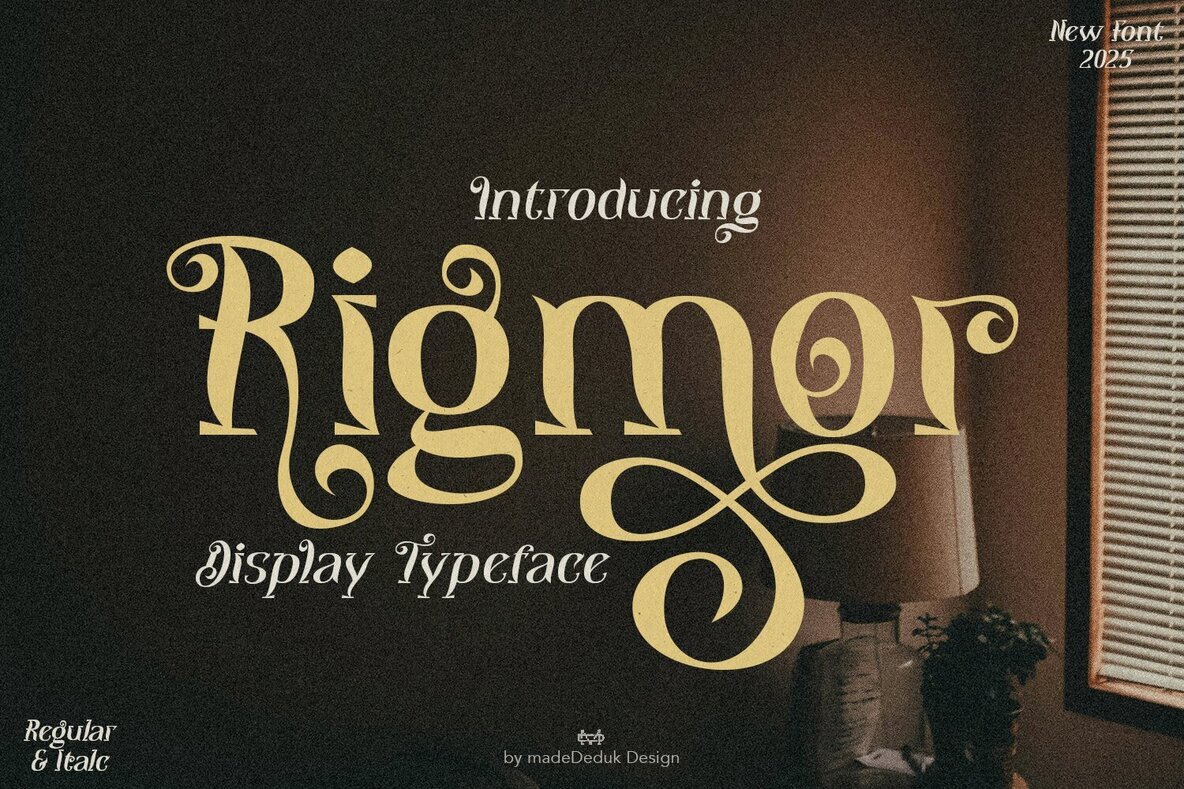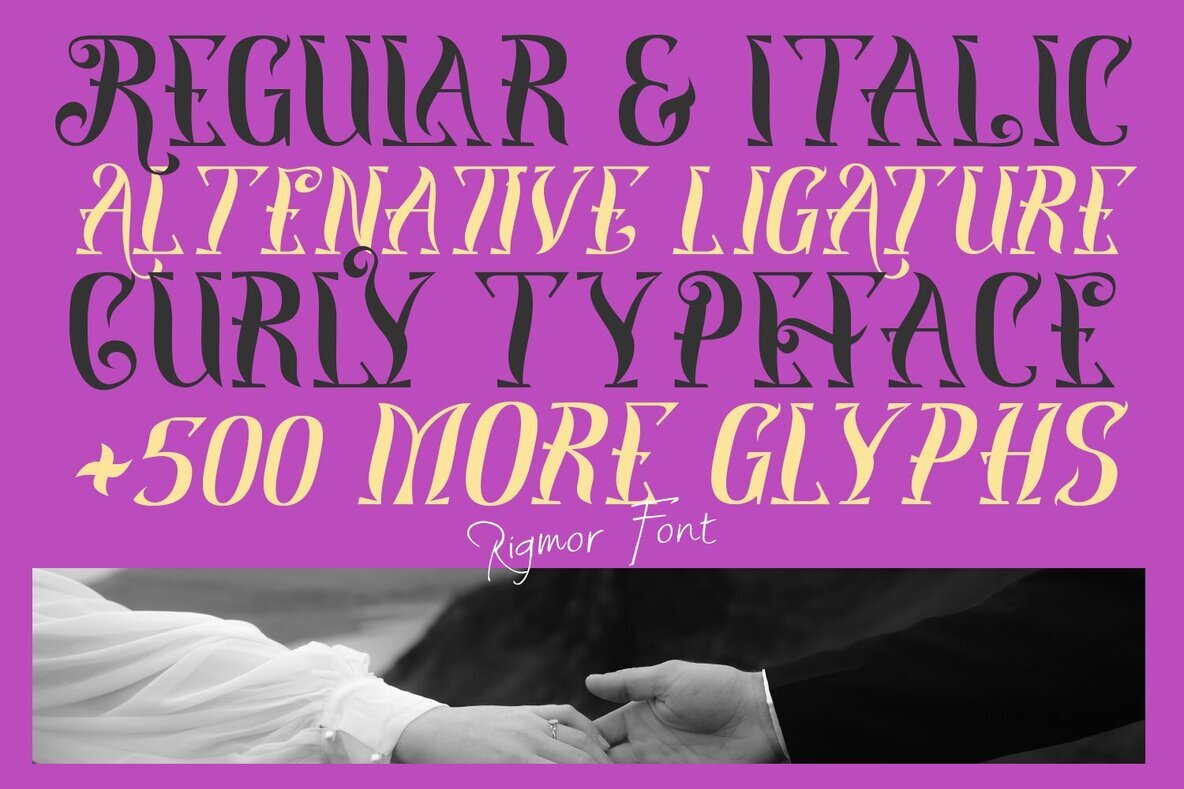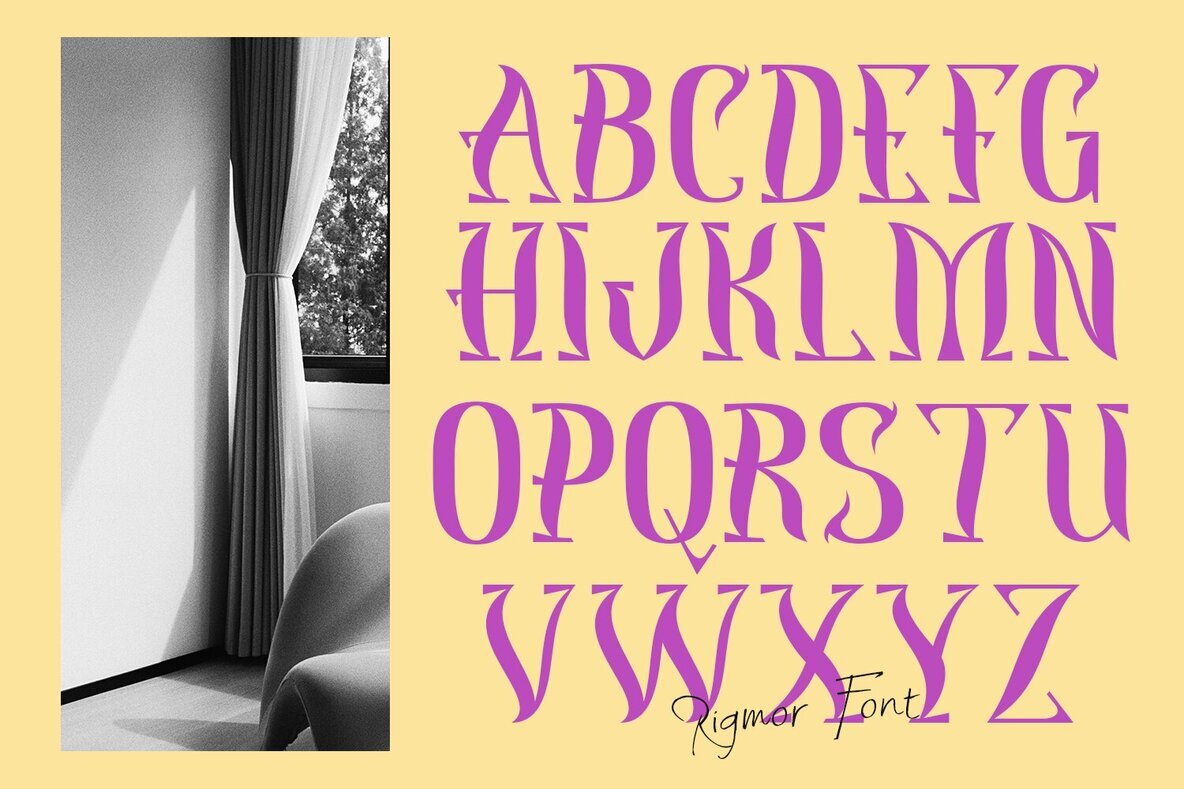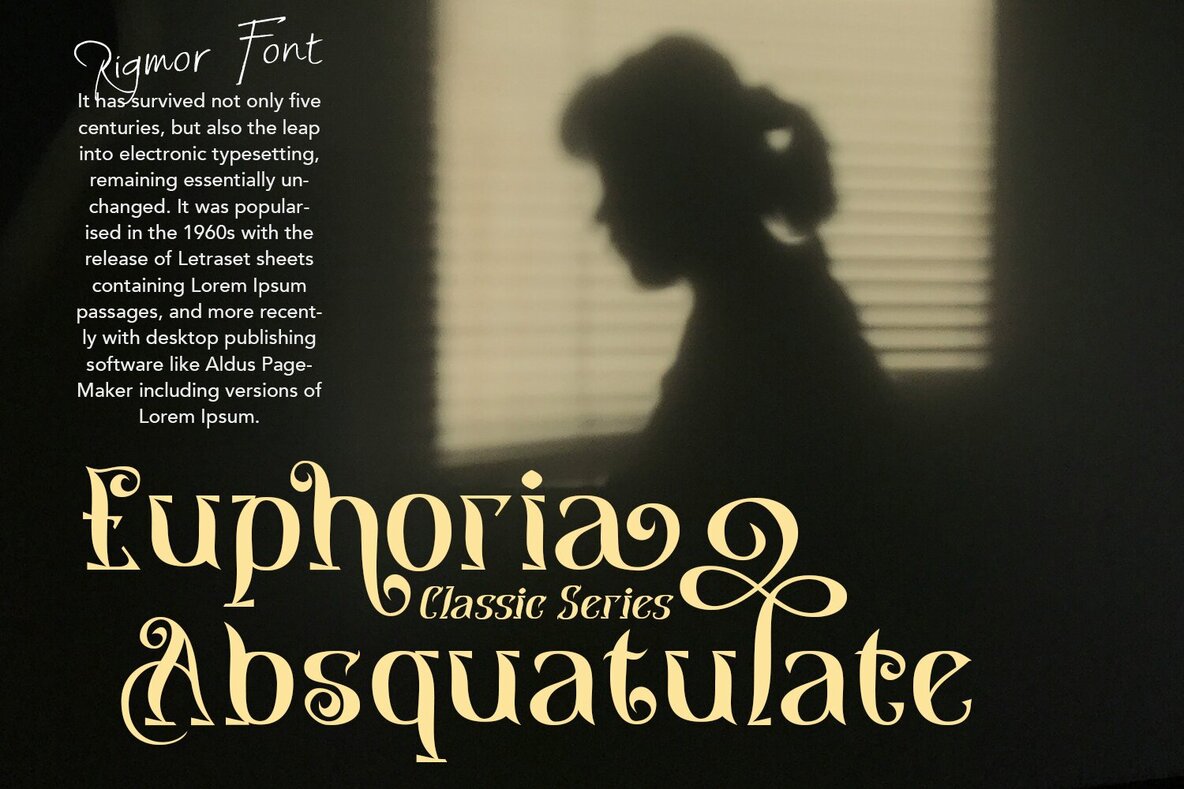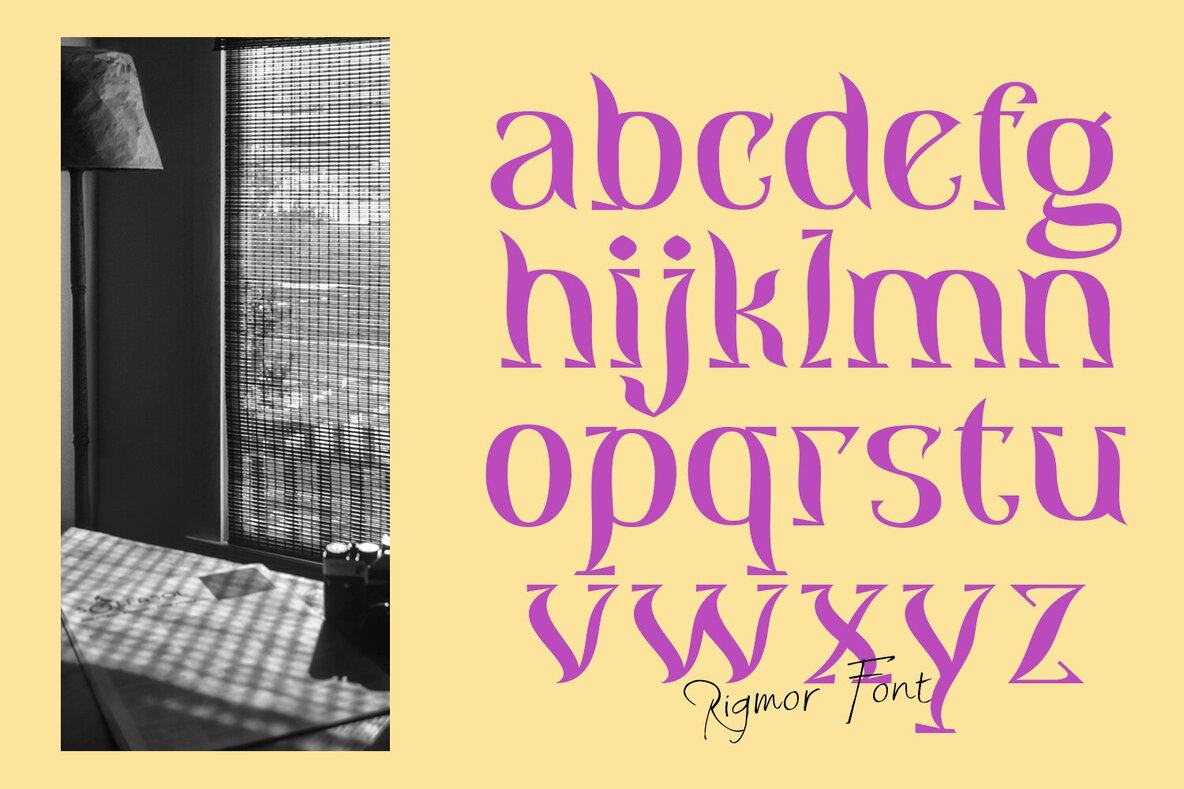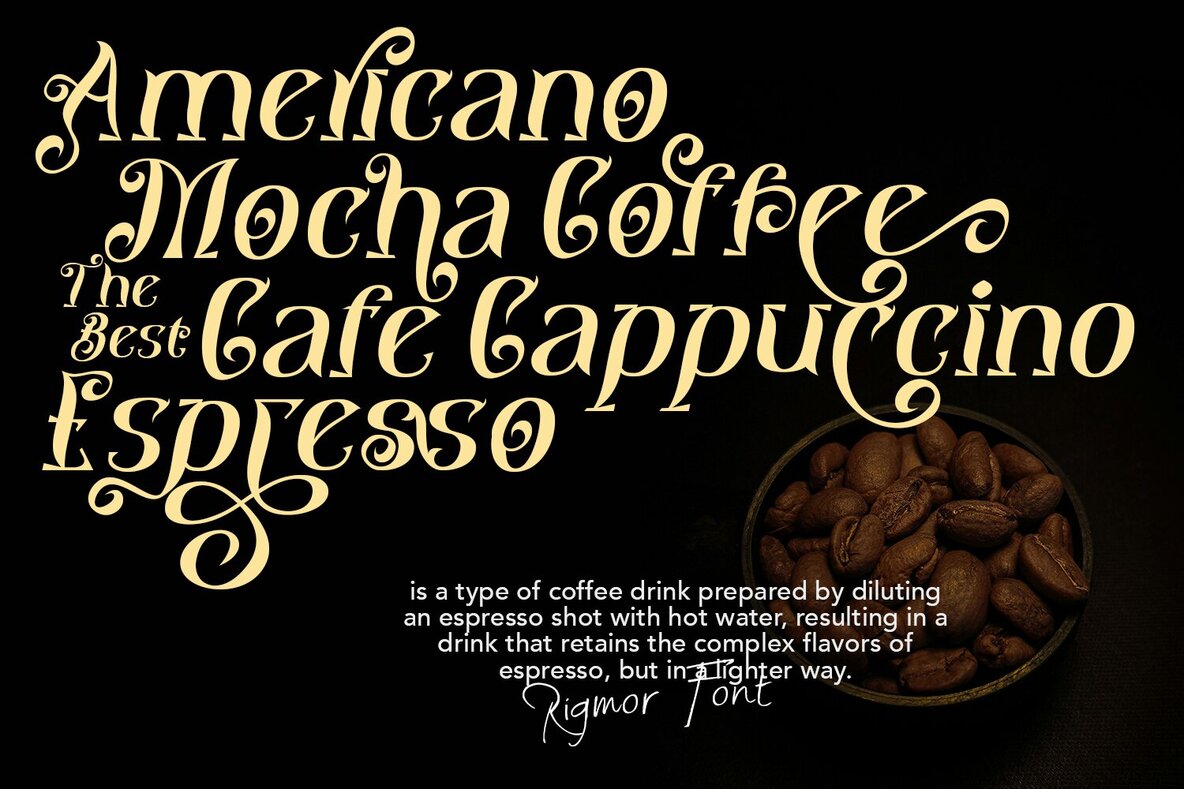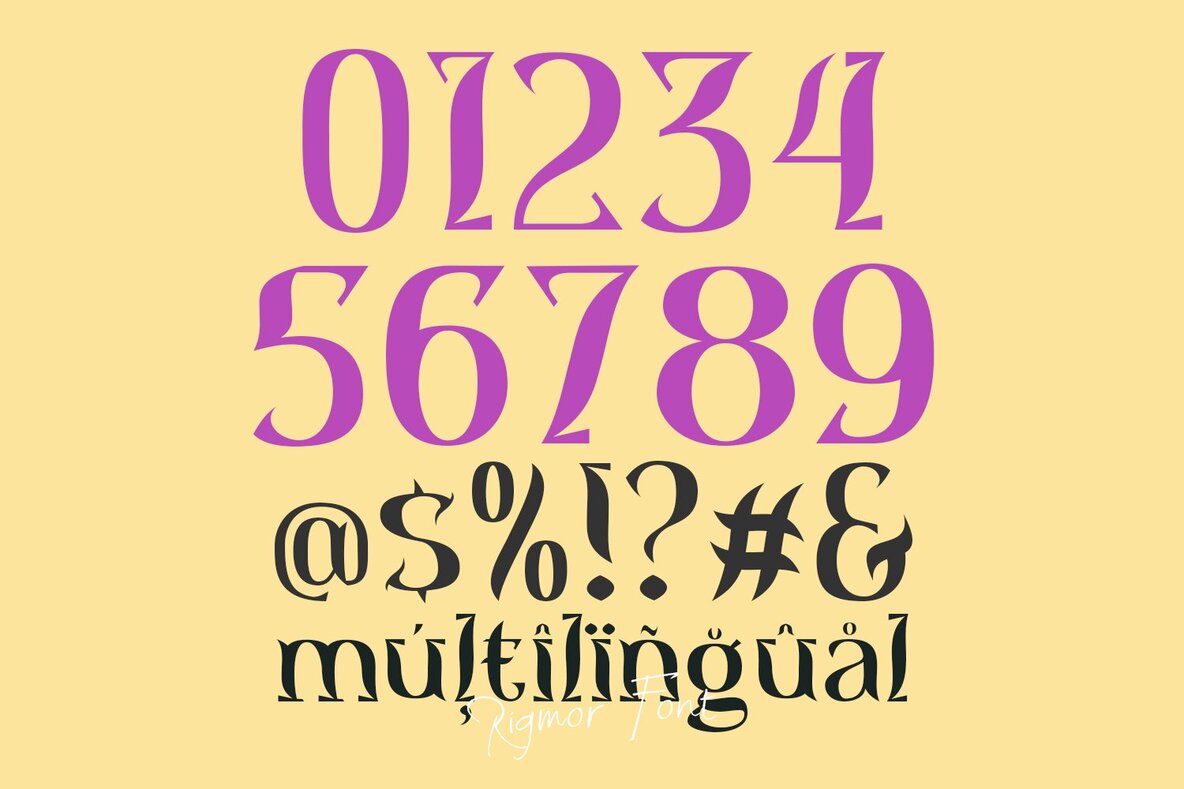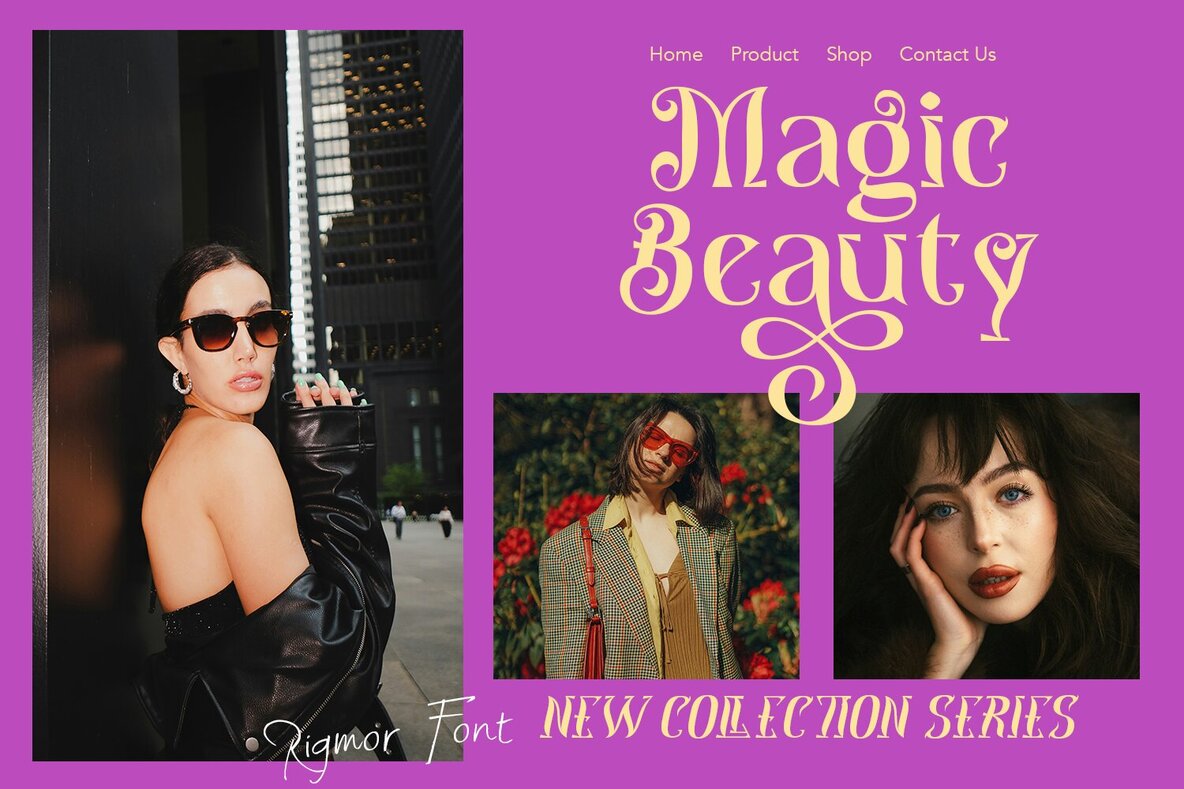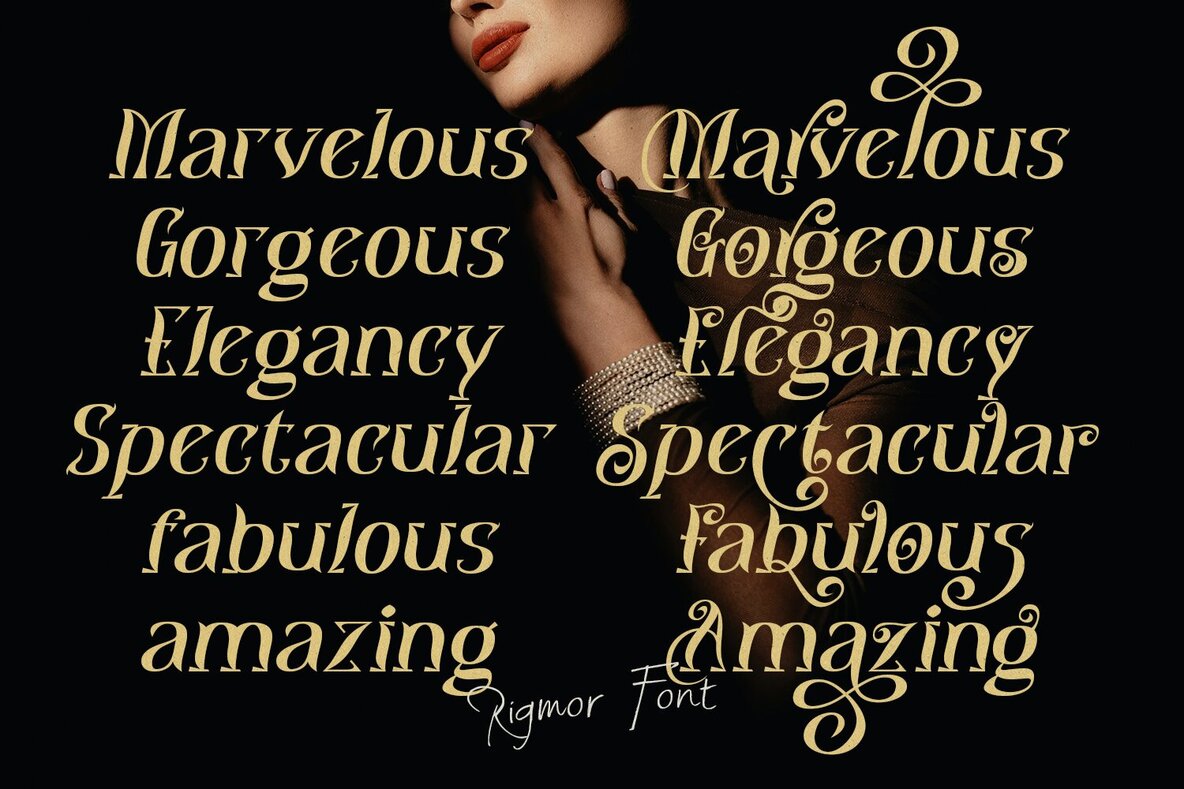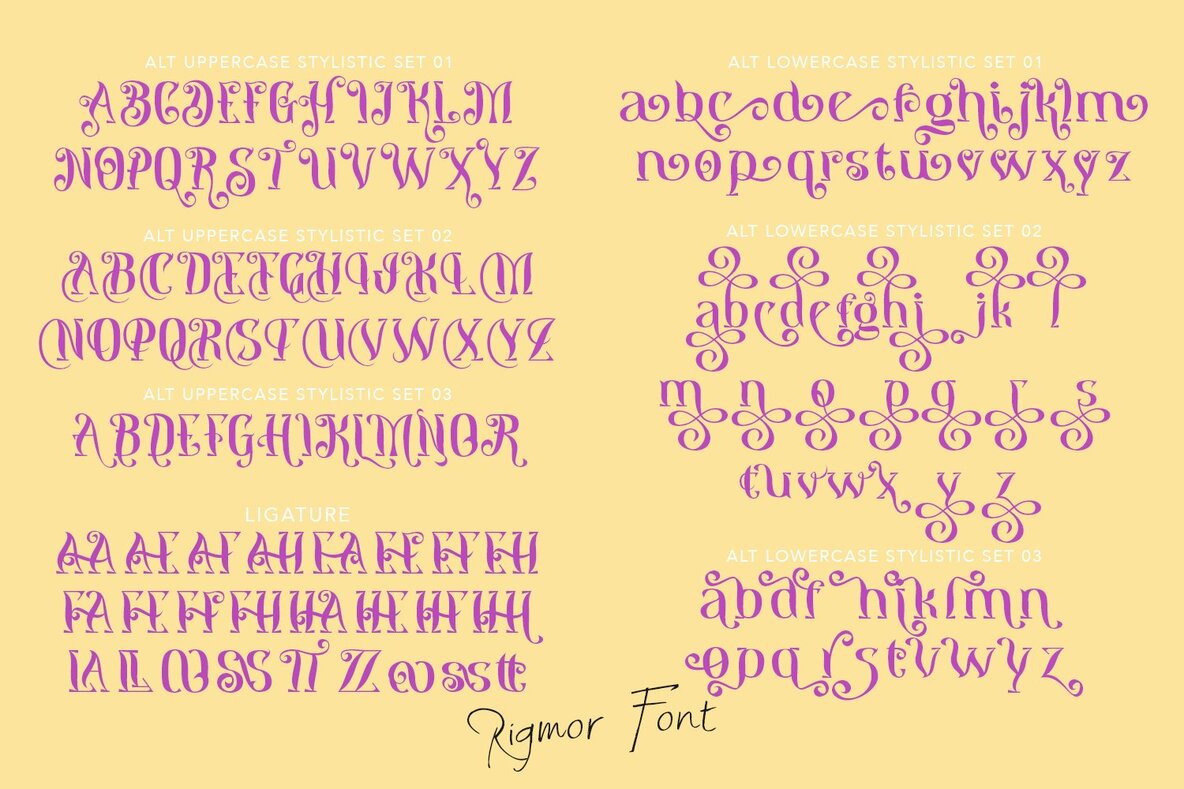
Rigmor Font
Rigmor is a captivating display font designed to inject a strong and distinctive flair into your projects. Its unique curly style is perfect for adding a modern vintage touch to any design. Explore the previews and draw inspiration from this elegant typeface.Rigmor: Curly Display Font